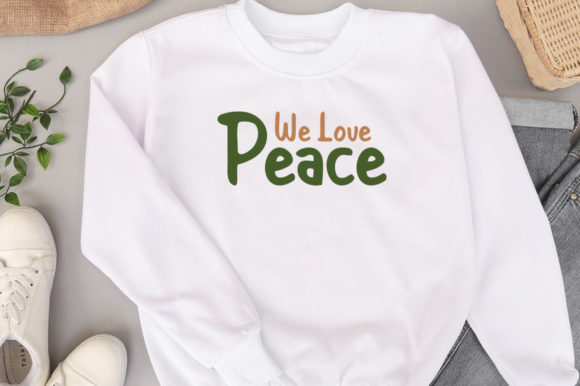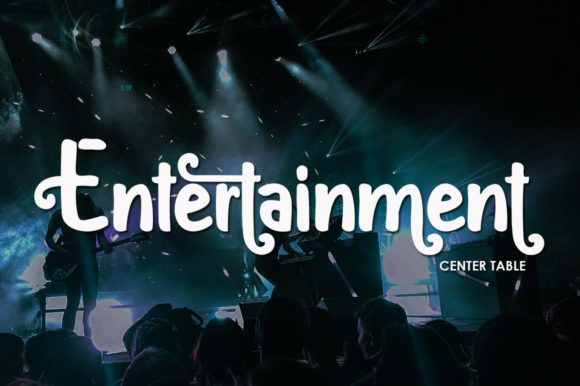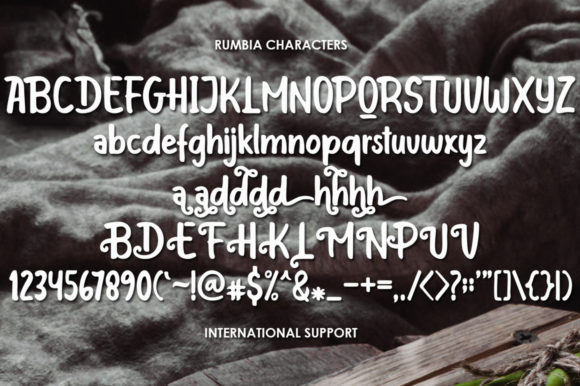
Introduction to Rumbia Font
Rumbia is a modern smooth display font, organic, dynamic, and energetic style.
Can be used for various purposes such as the title, signature, logo, correspondence, wedding invitations, letterhead, signage, labels, newsletters, posters, badges, etc.
Key Features of Rumbia Font